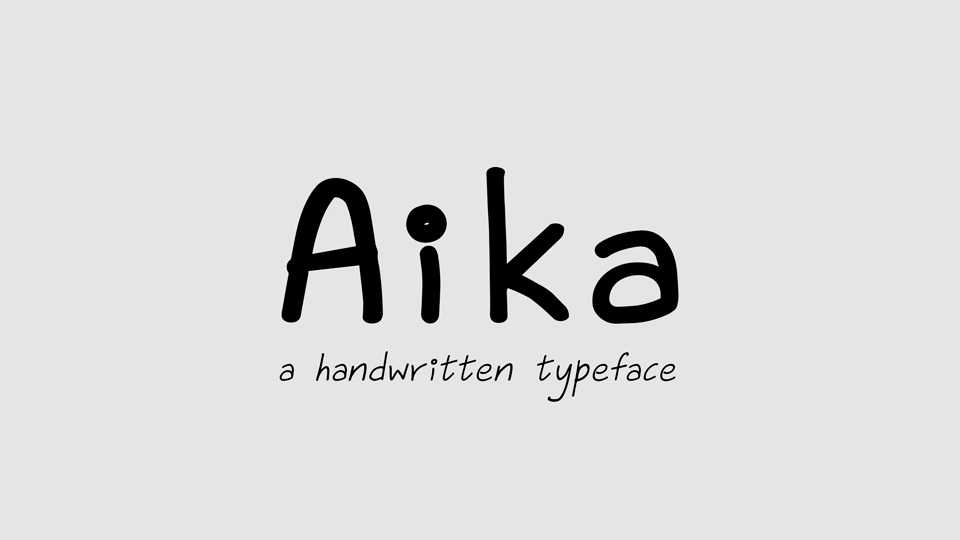
Download Aika font, a playful handwritten typeface that you can use in web design, UI design, and graphic design projects. Anywhere there’s a need for a humane, jolly touch, Aika’s the font you need.
Designer: Bapusaheb Patil